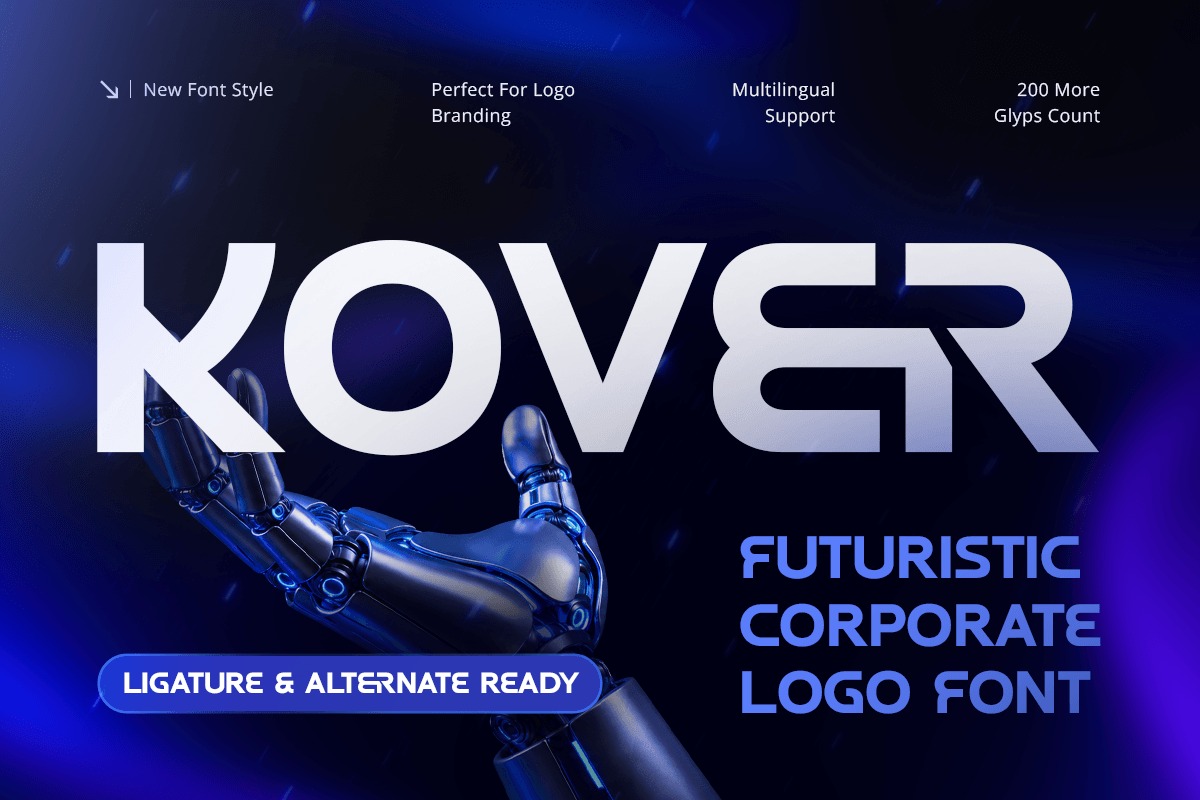
Kover – Futuristic Logo Font
Kover – Futuristic Logo Font is a professionally designed typeface that delivers clarity, structure, and consistent performance across various design applications. Kover – Futuristic Corporate Logo Font is a modern display font designed for corporate branding, technology logos, startup identities, and professional visual communication. Inspired by futuristic architecture, digital innovation, and contemporary business design, Kover combines sleek geometric letterforms with a refined corporate aesthetic to create bold, memorable brand identities.
Featuring clean futuristic letterforms, balanced proportions, and precision-crafted geometry, Kover delivers a professional appearance while maintaining a distinctive modern character. Its versatile design performs exceptionally well across logos, branding systems, digital products, presentations, and marketing materials, making it an ideal choice for businesses looking to project innovation and credibility.
Whether you’re launching a technology startup, refreshing a corporate identity, creating a professional logo, or developing a modern branding system, Kover provides the contemporary typography needed to establish a confident and recognizable brand presence.
Kover Font Features
Character Set: Uppercase, lowercase, numbers, symbols, and punctuation
Modern futuristic letterforms optimized for logo design and corporate branding
OpenType features ready to enhance your design needs
Kover is Perfect For
Corporate branding and business identity systems
Technology startup logos and digital branding
Professional logo and logotype design
Software and SaaS company branding
Website headers and digital brand assets
Business presentations and marketing materials
Innovation and technology-focused projects
Contemporary display typography
Whether you’re creating a corporate logo, developing a technology brand, launching a startup identity, or designing modern business marketing materials, Kover delivers the innovation, professionalism, and visual impact of a futuristic corporate logo font built for forward-thinking brands.